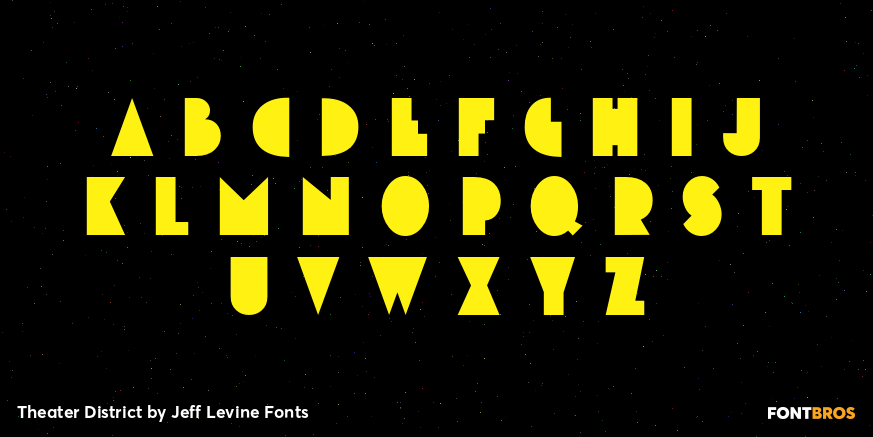
Theater District
Theater District JNL revisits the classic lettering of the 1930s Art Deco movement with this bold headline type. While many variations of this letter form exist, each interpretation evokes the approach to modernism and streamline embraced by architects and fashion designers of the period.